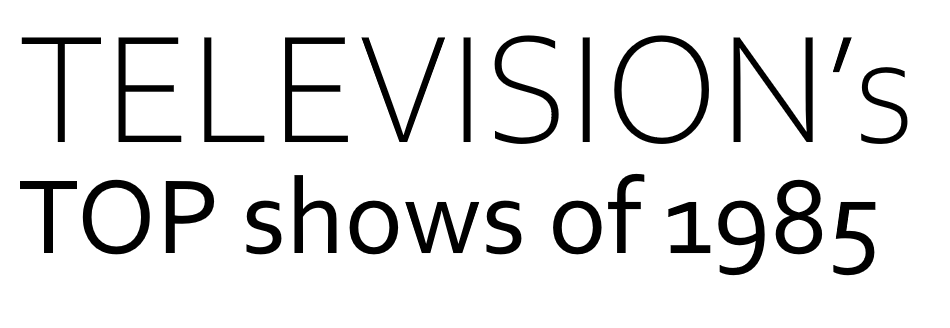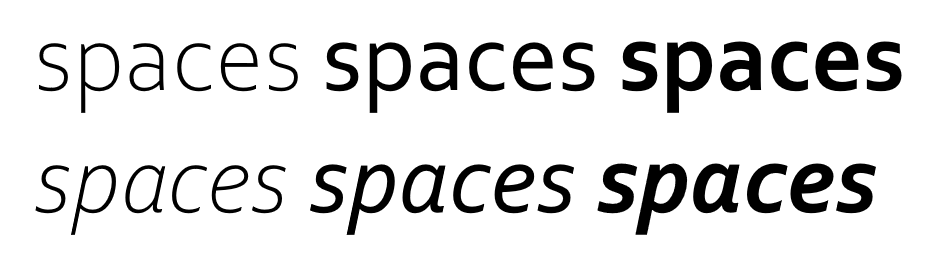
Corbel is designed to give an uncluttered and clean appearance on screen. The letter forms are open with soft, flowing curves. It is legible, clear and functional at small sizes. At larger sizes the detailing and style of the shapes is more apparent resulting in a modern sans serif type with a wide range of possible uses.
| Designers | Jeremy Tankard |
Change list:
Windows 10 version 1809 released on November 13, 2018
The following two styles were added to the Corbel font family
- Corbel Light
- Corbel Light Italic These styles were created by Monotype.
Windows 7
The fonts were extended to support the Vietnamese language.
Windows Vista
Corbel was introduced as part of the ClearType font collection. Initially it was available in four styles with a pan European language character set.
- Corbel
- Corbel Bold
- Corbel Bold Italic
- Corbel Italic